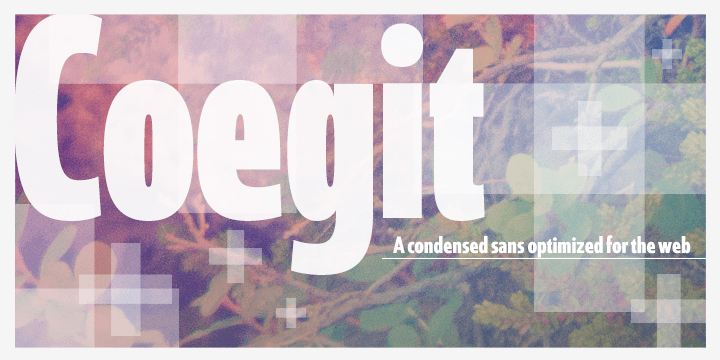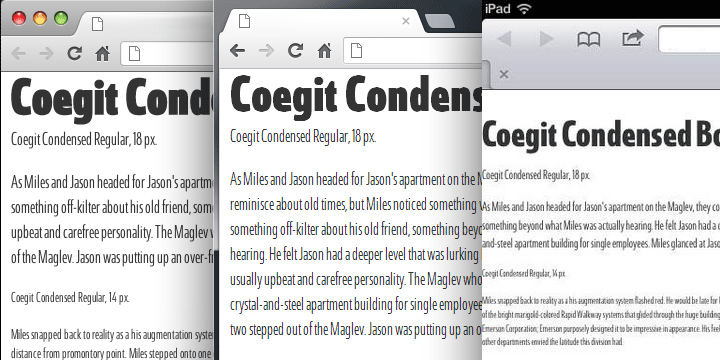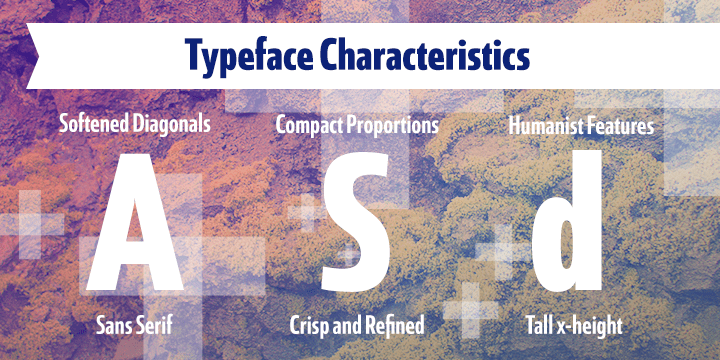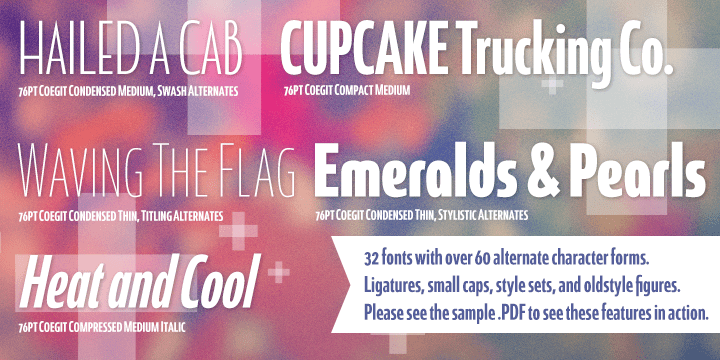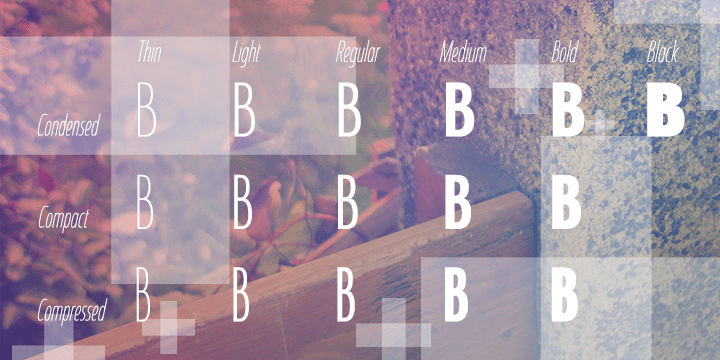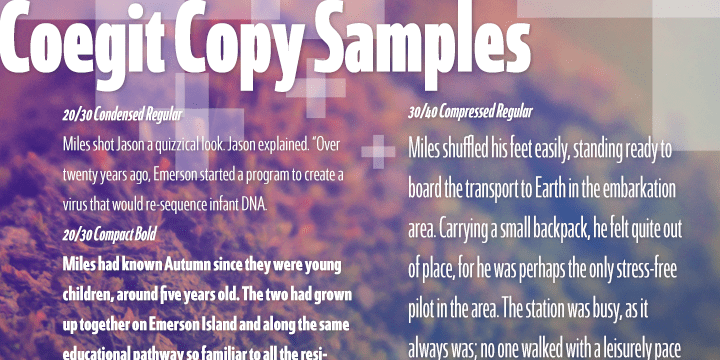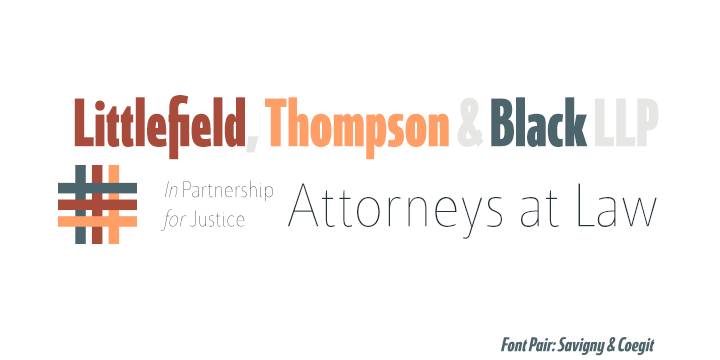
Coegit
In the world of webfonts, Condensed proportions are key to maximizing your page's premium real estate while keeping your copy clean and catchy as you cut down to the essentials. Soon after the introduction of webfonts, I began to see Insigne's Le Havre used frequently for web headlines, not so much for its Art Deco look as for its more compact proportions. There seemed to be a need for a font that was designed to be used solely for the web's unique constraints. Enter Coegit Sans.
Coegit is built specifically for web applications. Its highly Condensed forms range from thin--offering the greatest number of uses--to the attractive, accenting black. With three widths--Compressed, Compact, and the widest, Condensed --the family holds a total of sixteen fonts. The typefamily has also been hinted for excellent, onscreen display quality, even at small sizes. Overall, its lighter, humanist features provide the reader a more congenial welcome than its square, sans-serif counterparts can offer.
Coegit is equipped for complex professional typography with stems, small caps and plenty of alts, including titling capitals. The face includes a number of numeral sets, including fractions, old-style and lining figures with superiors and inferiors. OpenType-capable applications such as Quark or the Adobe suite can take full advantage of automatically replacing ligatures and alternates. You can find these features demonstrated in the .pdf brochure.
The family also includes glyphs to support a wide range of languages, including Central, Eastern and Western European languages. In all, Coegit supports over 40 languages that use the Latin script, making the new addition a great choice for multi-lingual publications and packaging.
While the advanced OpenType features of webfonts are not currently supported in many browsers, the near future promises wide support. As acceptance of these features grow, Coegit Sans will prove to be a versatile element for your wide range of web projects.